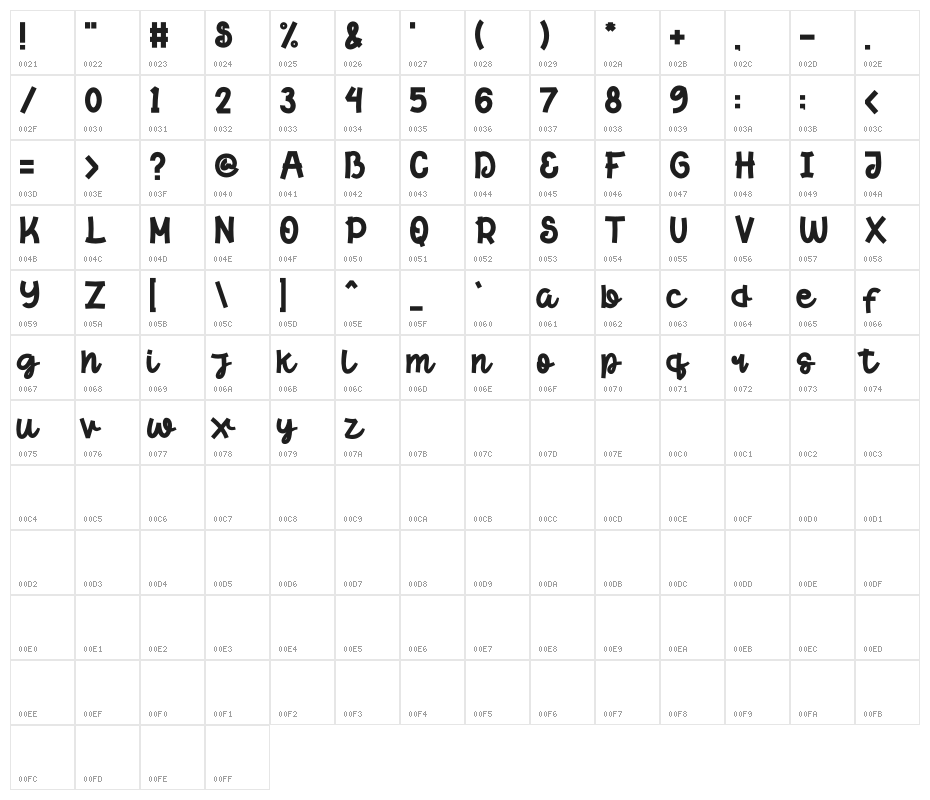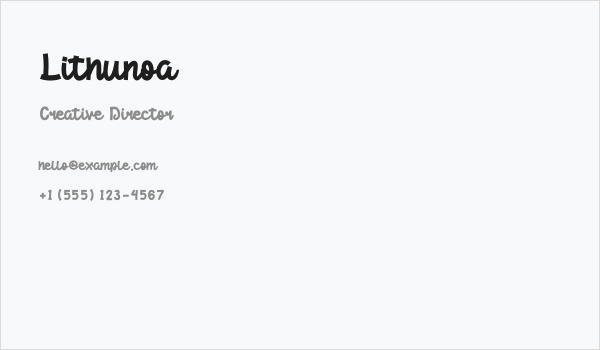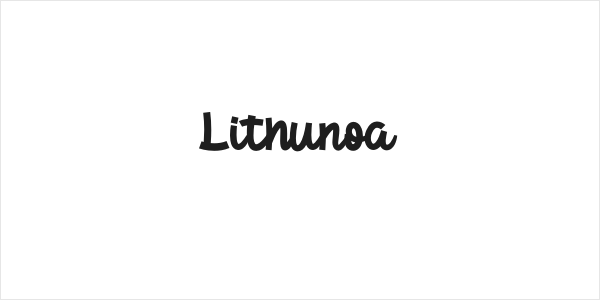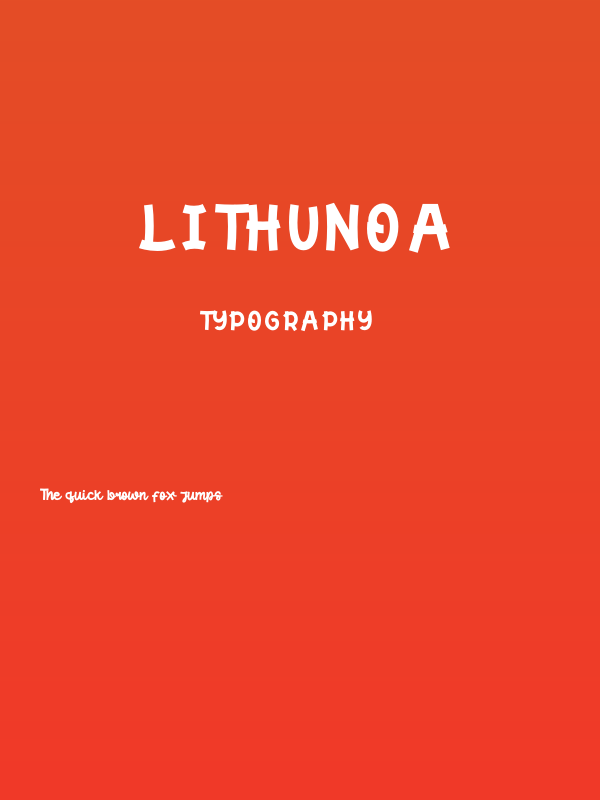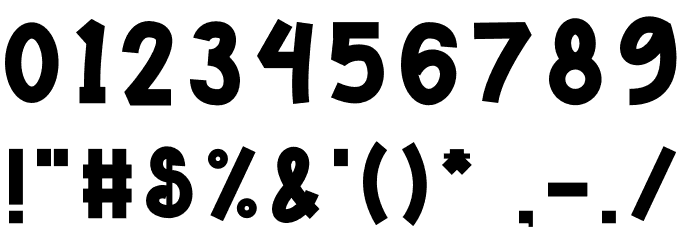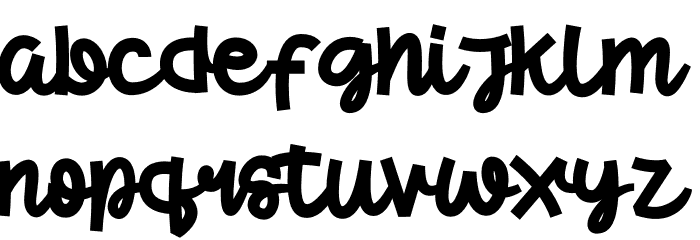
Lithunoa Font
Lithunoa Description
This font features a playful and bold design, characterized by its thick, rounded strokes and whimsical curves. The uppercase letters exhibit a unique blend of straight lines and gentle curves, creating a dynamic and energetic appearance. The lowercase letters maintain a consistent style, with a slightly more fluid and connected form, adding a touch of casual elegance. The numerals are bold and easily distinguishable, complementing the overall aesthetic. Special characters are creatively designed, maintaining the font's playful nature. This font is ideal for projects that require a fun and engaging visual impact.
| Overall Style | Playful |
| Proposed Projects | Ideal for children's books, playful branding, posters, and creative invitations. |